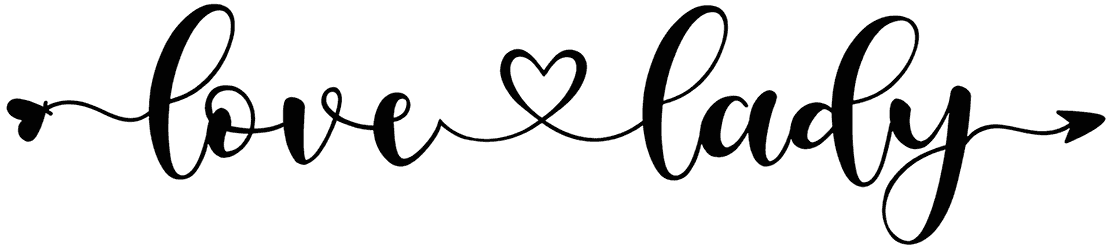
Love Lady Font
With a flowing, attached style that makes it perfect for standing out in a crowd, Love Lady is a charming holiday font. The lettering, invitations, greeting cards, and other lighthearted designs that call for this Valentine’s font are all fantastic. If you want to put some heart into your creations, this script font is ready to get. From RB’s extensive font library, you can download it right away for use in your projects.